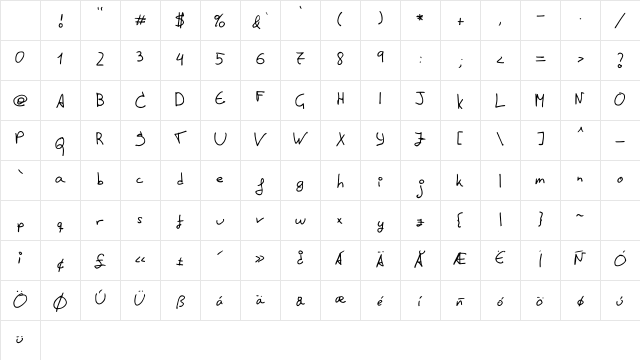
Complete Yonseca's Medium glyph index. Displaying only characters natively supported by Yonseca's Medium font.
Yonseca's is a composed and adaptable typeface that performs quietly and consistently across a wide range of design contexts.